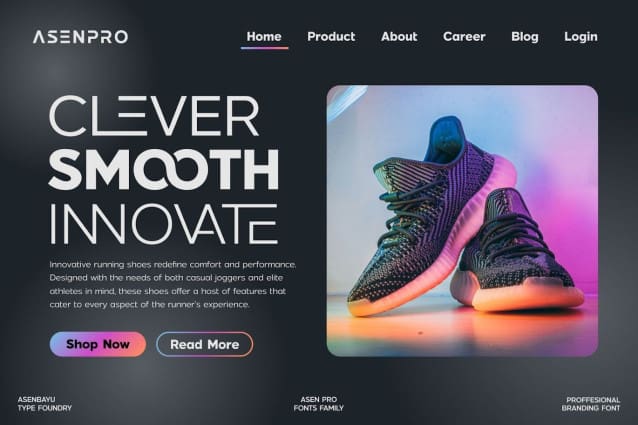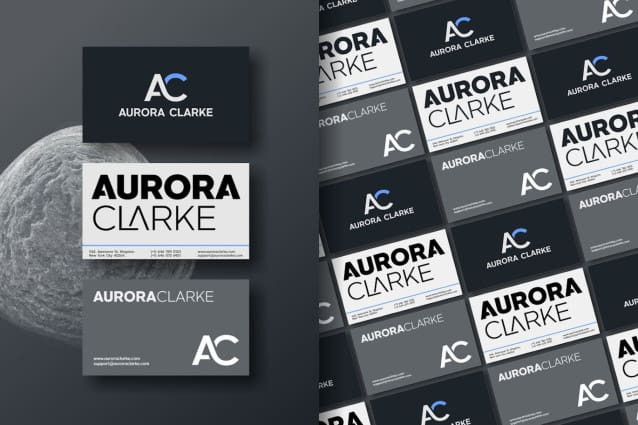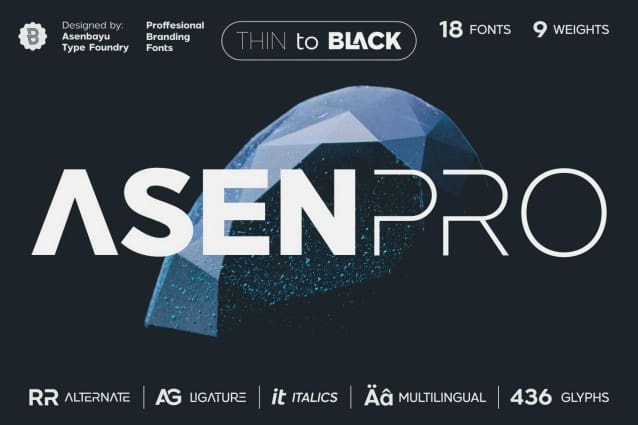
Asen Pro Font Family
Asen Pro Font Family is a modern professional branding font family consisting of 18 fonts. Asen Pro can create the perfect balance between formal and casual style. This font has many ligatures and alternatives. Use it to distribute desired logos, attractive posters, designs for social media, fashion and websites.